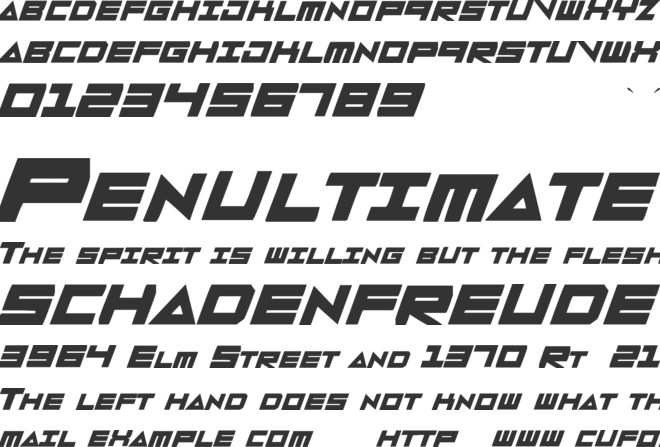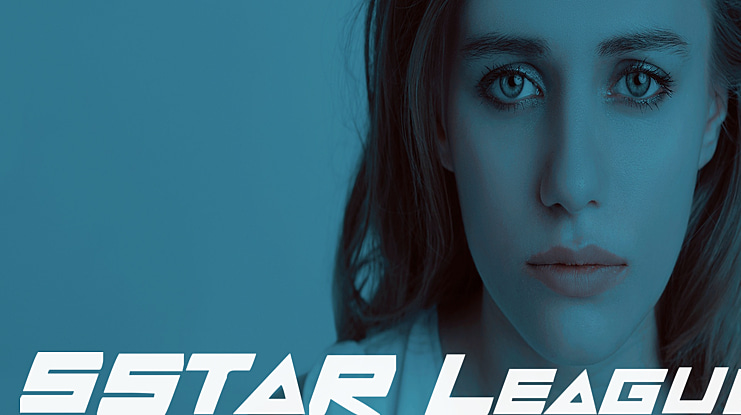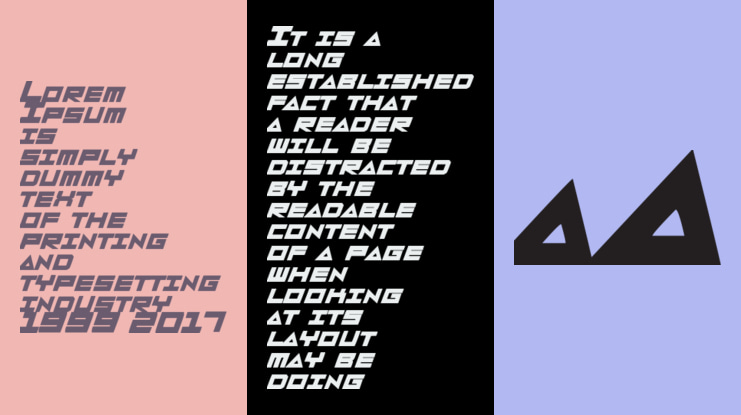
5STAR League Font
This is a typeface used for a project, which was aimed at creating a snooker tournament.
It was based upon the logo design for the project.